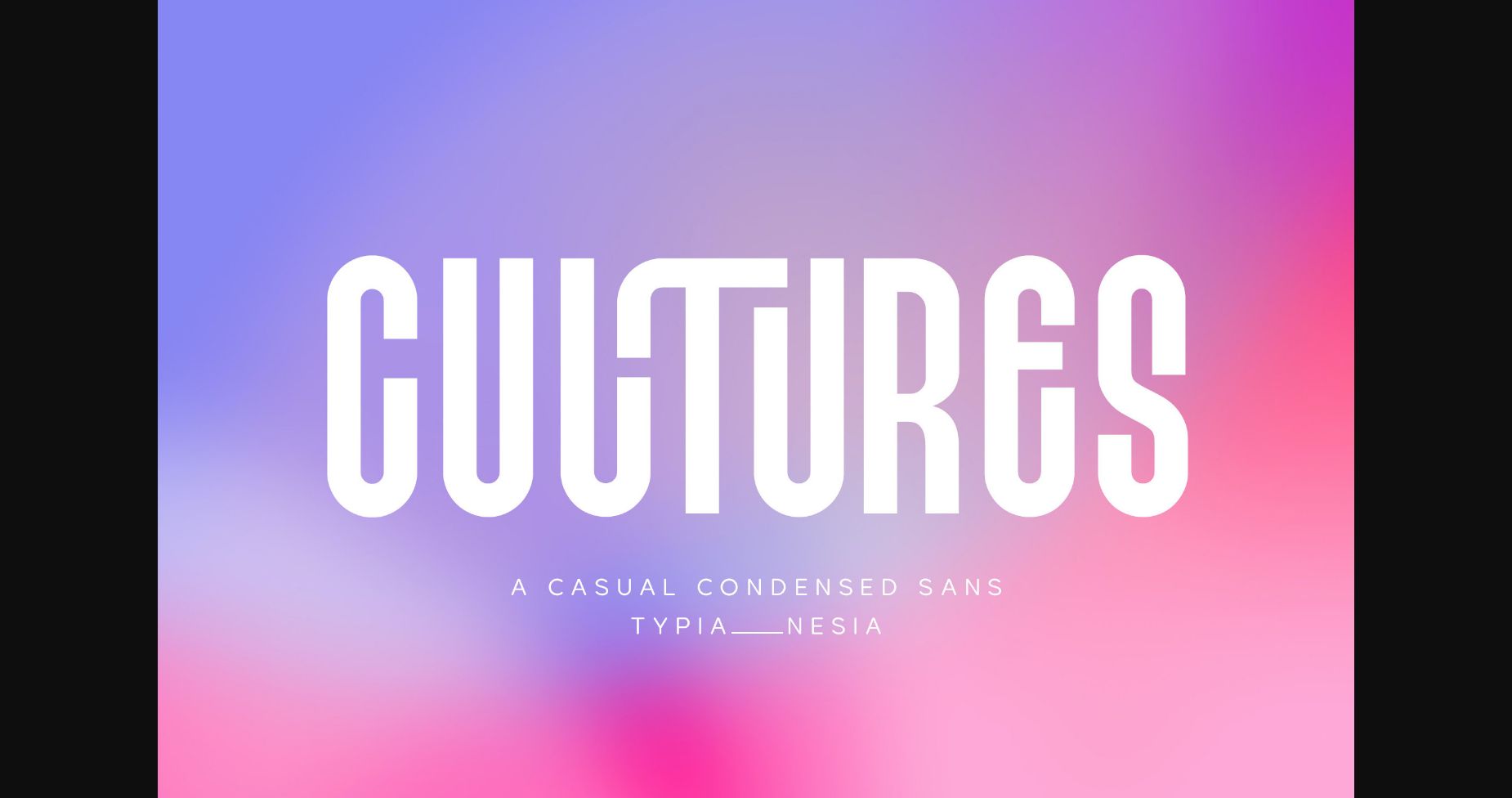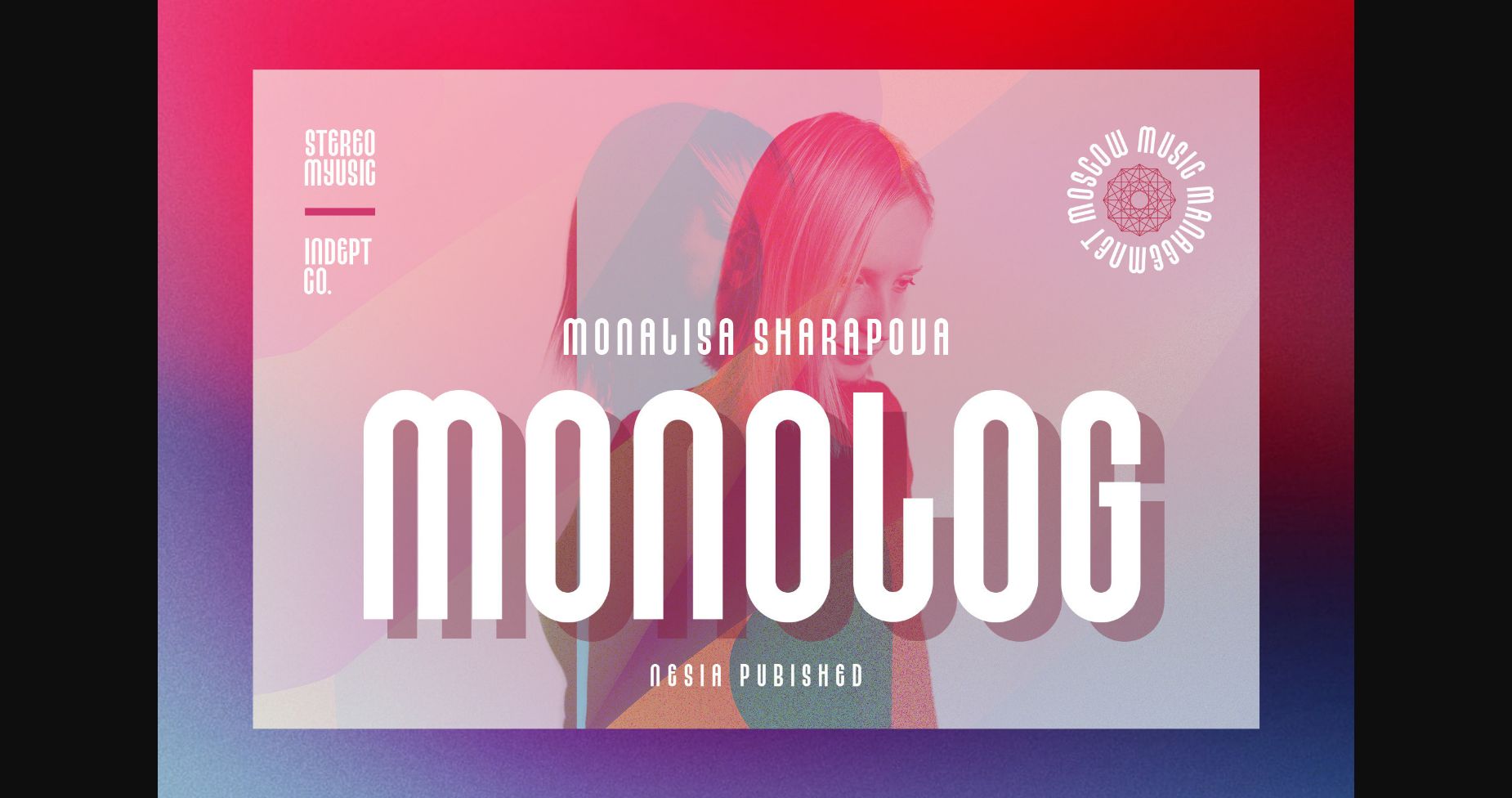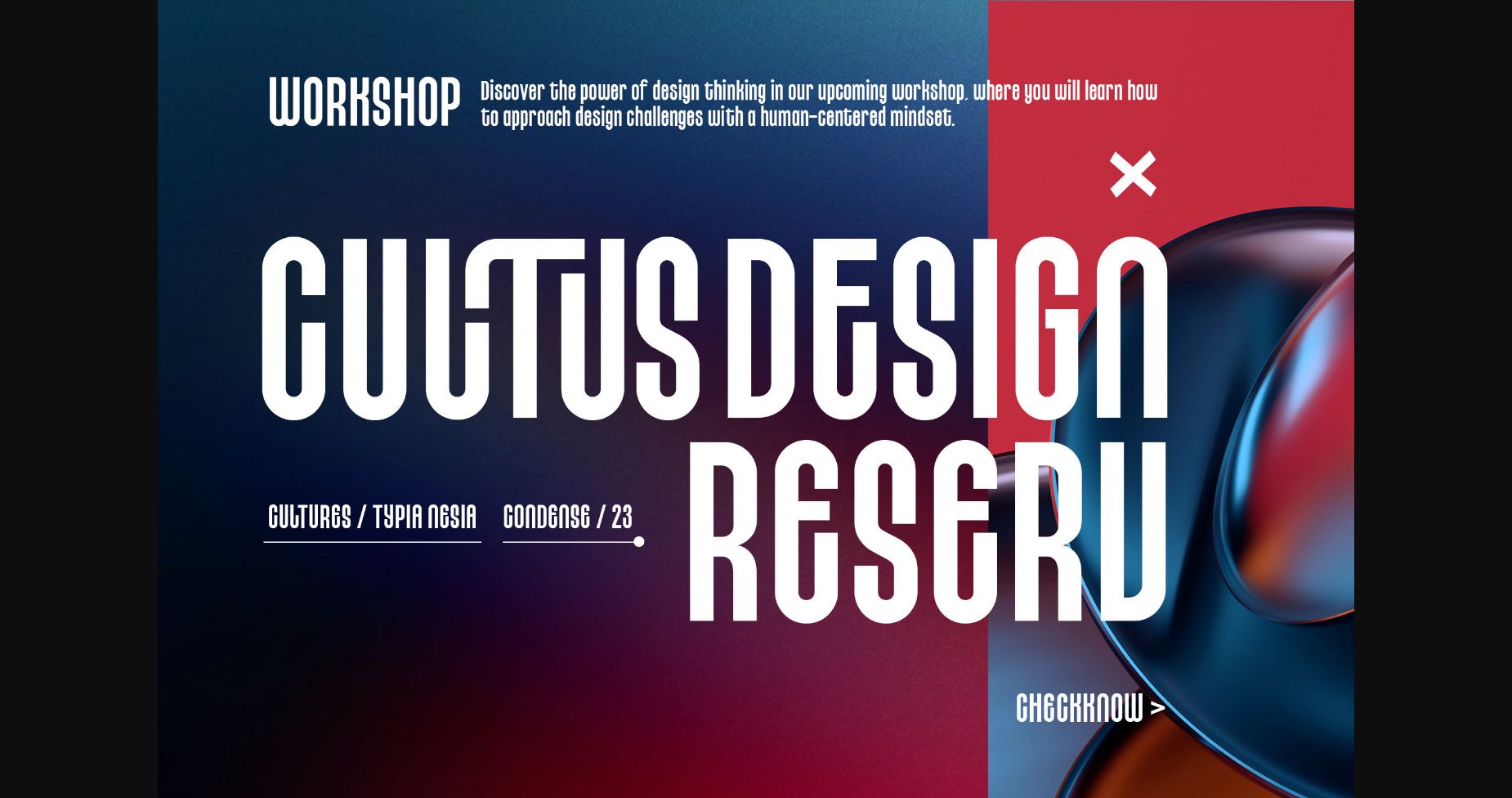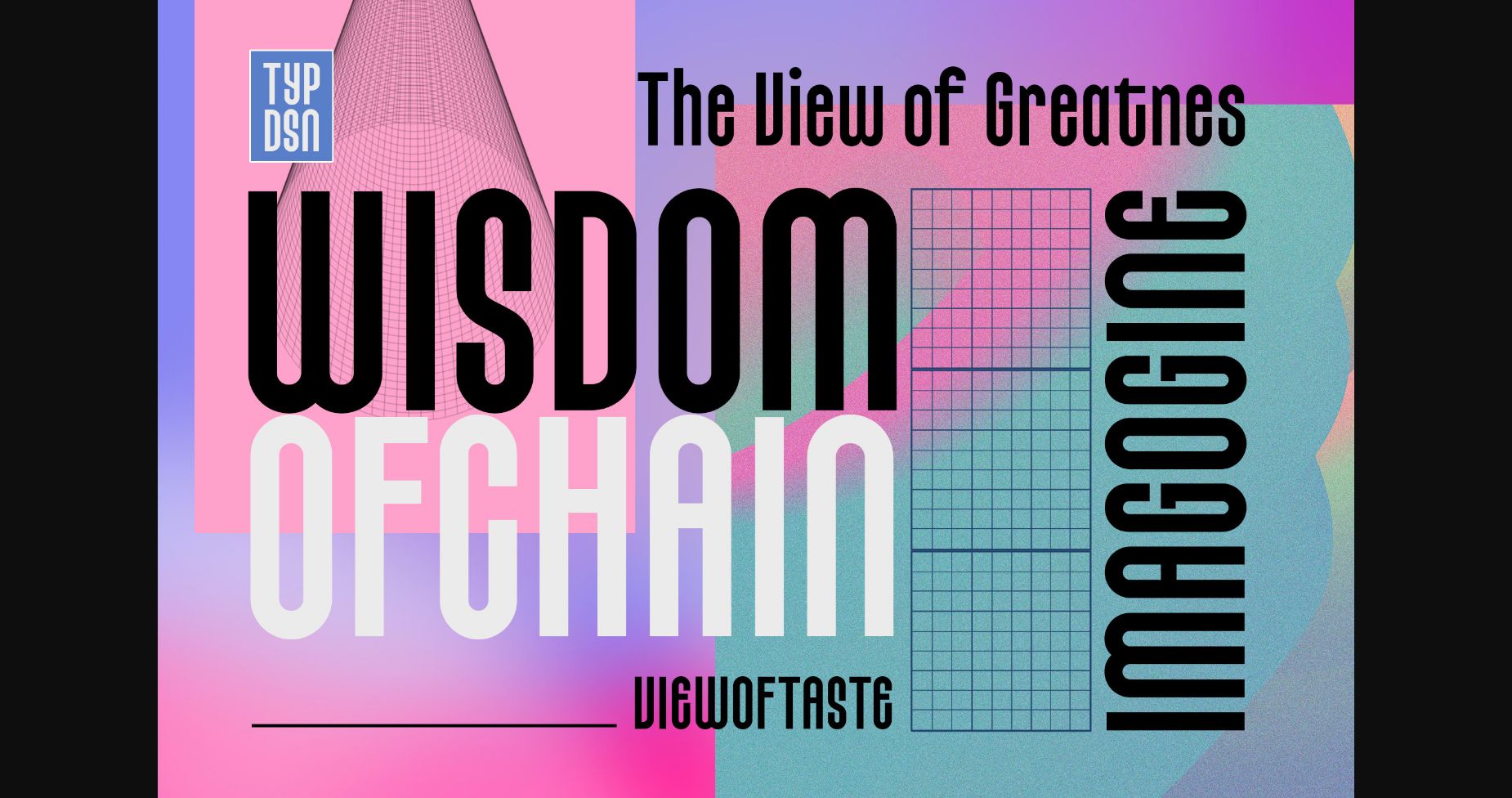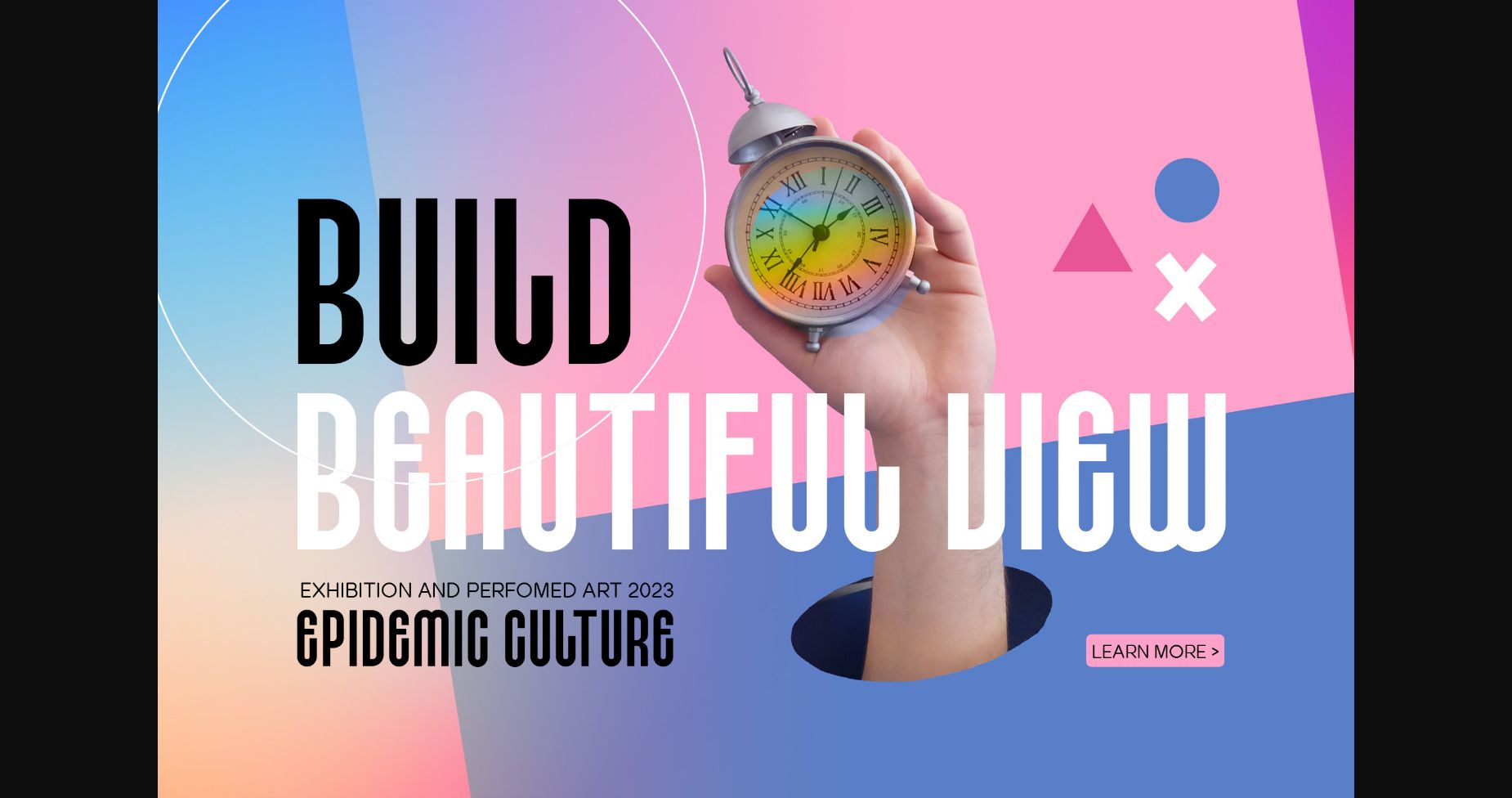
About Cultures Font
Cultures Condensed Sans – A Modern Bold and Dynamic Display Font for Sports, Game and Active Brand / Logo.
Cultures Condensed Sans is a bold and dynamic display font that is perfect for sports and active brands. With its condensed design, this font is ideal for creating eye-catching titles and headlines.
Cultures Condensed Sans is designed to be functional and versatile, making it ideal for a variety of design projects, including logos, posters, advertisements, and more.
Cultures Condensed Sans is a bold and dynamic display font that is perfect for sports and active brands. With its condensed design, this font is ideal for creating eye-catching titles and headlines.
Cultures Condensed Sans is designed to be functional and versatile, making it ideal for a variety of design projects, including logos, posters, advertisements, and more.